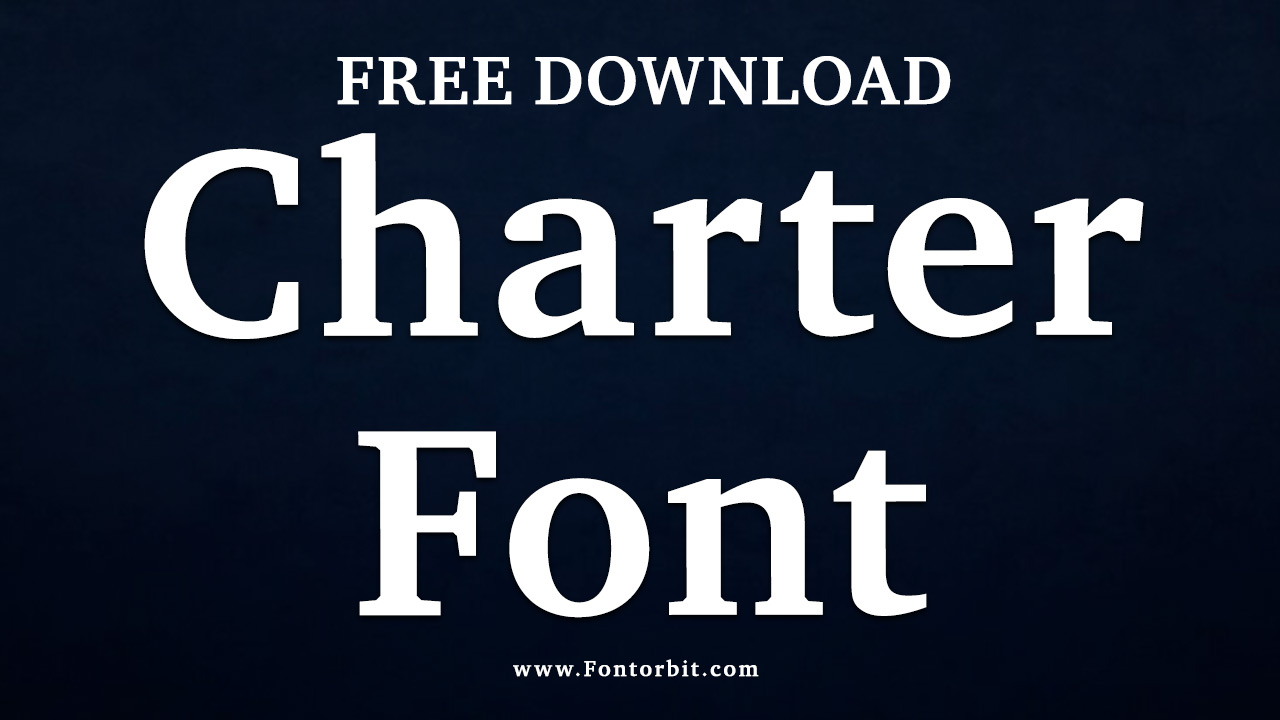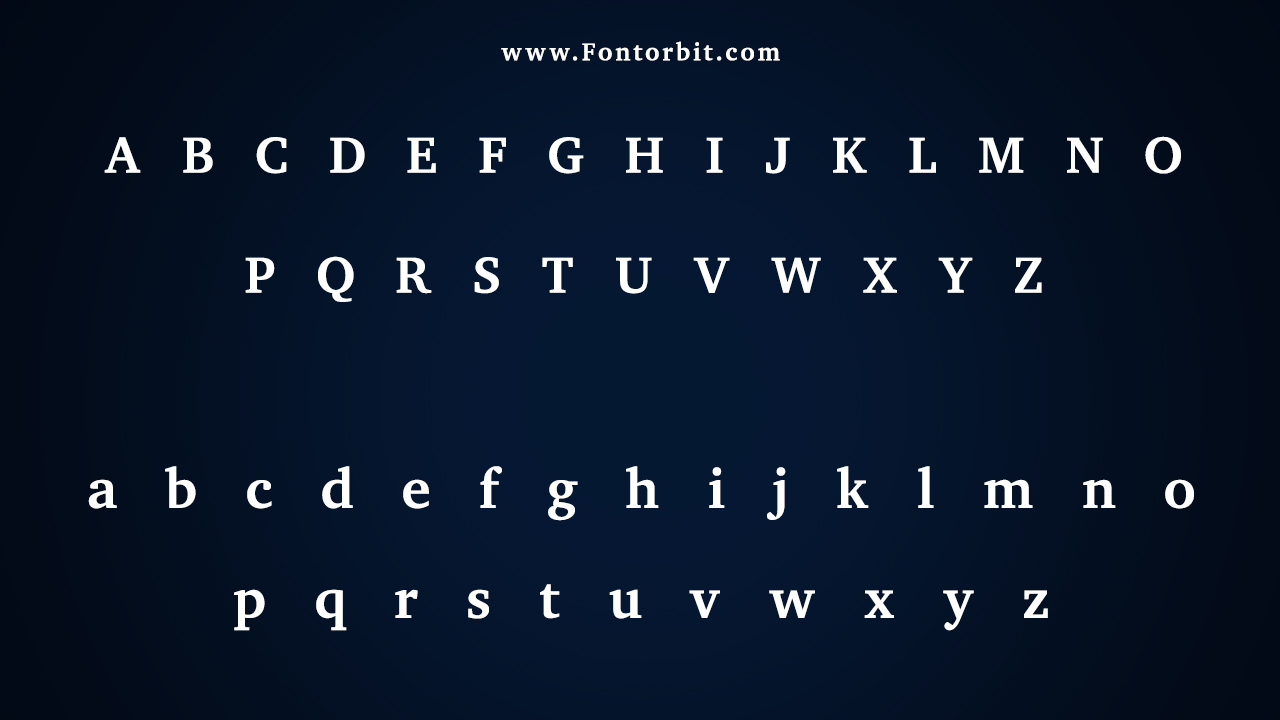
The Charter Font Family
The Charter Font family includes a variety of styles and weights, from regular to bold and black, with matching italics. It also features traditional TTF (TrueType Font) and OTF (OpenType Font) formats and webfonts. This makes Charter a versatile choice for both print and digital applications.
Charter’s design is well-suited for any project requiring clear, readable text. Its clean lines and classic proportions ensure excellent legibility across various platforms, making it ideal for web design, print materials, and corporate branding.
Charter Font is a timeless and highly readable typeface that performs exceptionally well on both modern screens and traditional print. With its range of styles and formats, including webfonts, Charter is an excellent choice for any project requiring a dependable and versatile font.
1.What Is The Charter Font?
Charter is a classic typeface designed by Matthew Carter, known for its high readability on low-resolution devices and modern screens.
2.Who Designed The Charter Font?
Matthew Carter designed the Charter Font in 1987. He is also known for creating notable screen fonts such as Abyssinica SIL and Palatino.
3.What Are The Key Features Of The Charter Font?
Charter features a clean and classic design with excellent readability, available in various styles and weights including regular, bold, black, and italics.
4.How To Use Charter Font In Branding?
Charter is ideal for branding, print publications, and web design, where clear and legible text is essential. Its versatile range of styles makes it suitable for various applications.